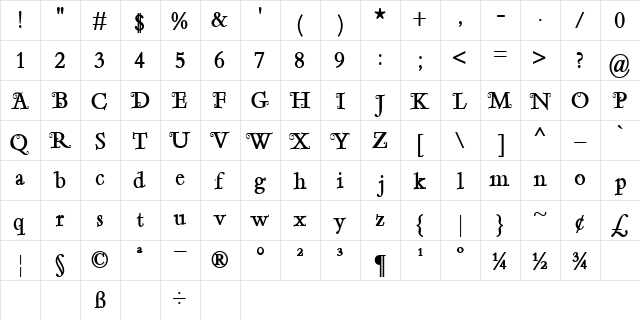
Melville Regular
Design Context for Melville Typeface
Melville is a composed and adaptable typeface that performs quietly and consistently across a wide range of design contexts.